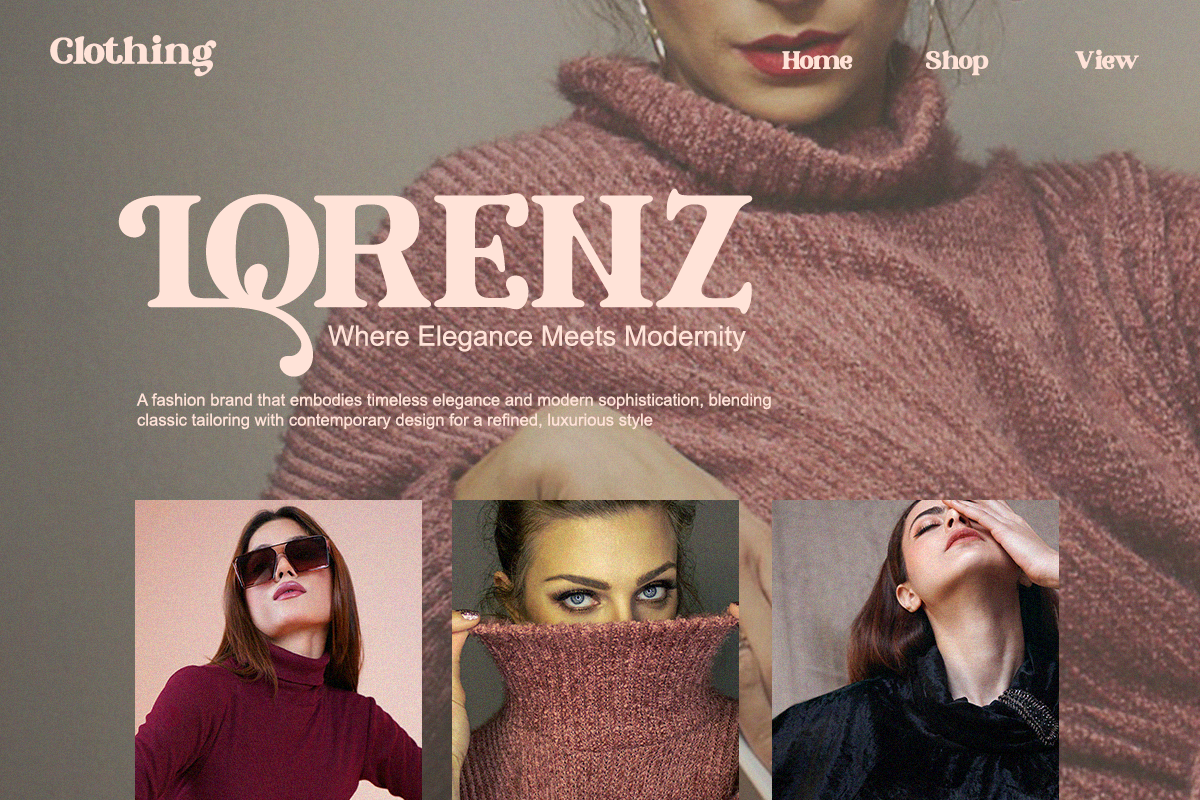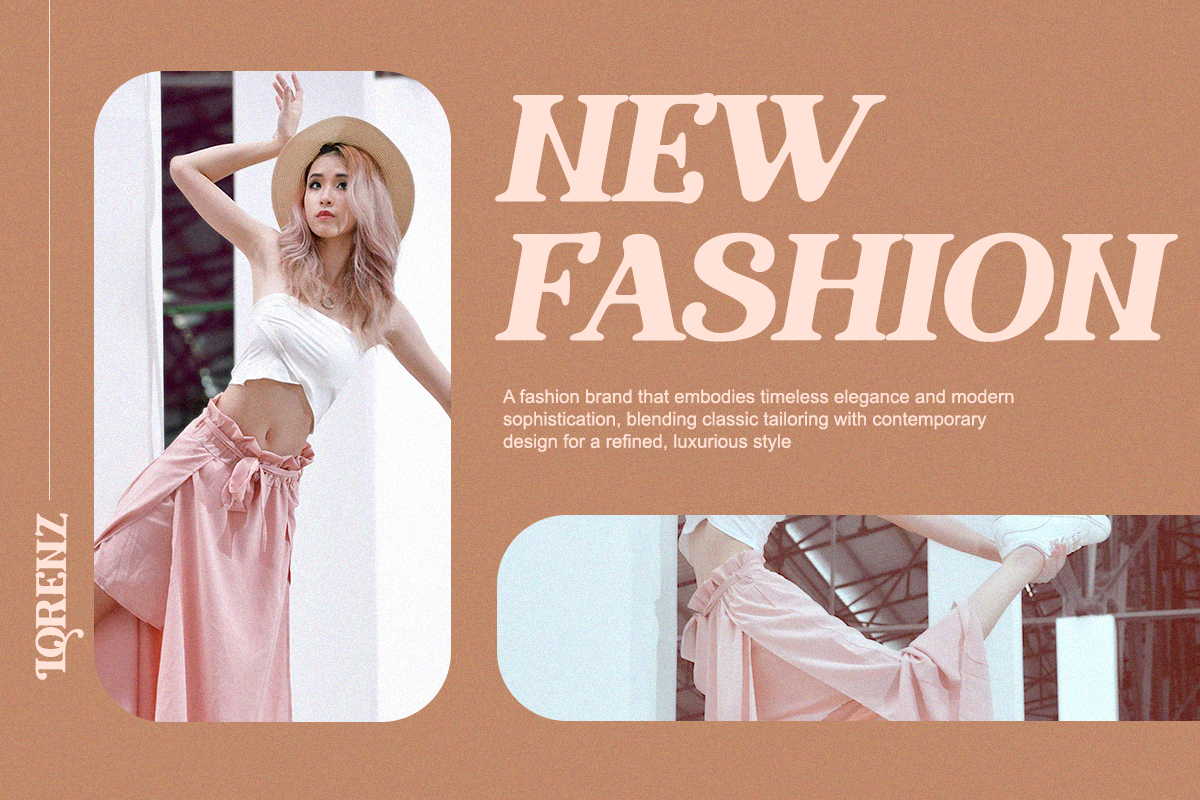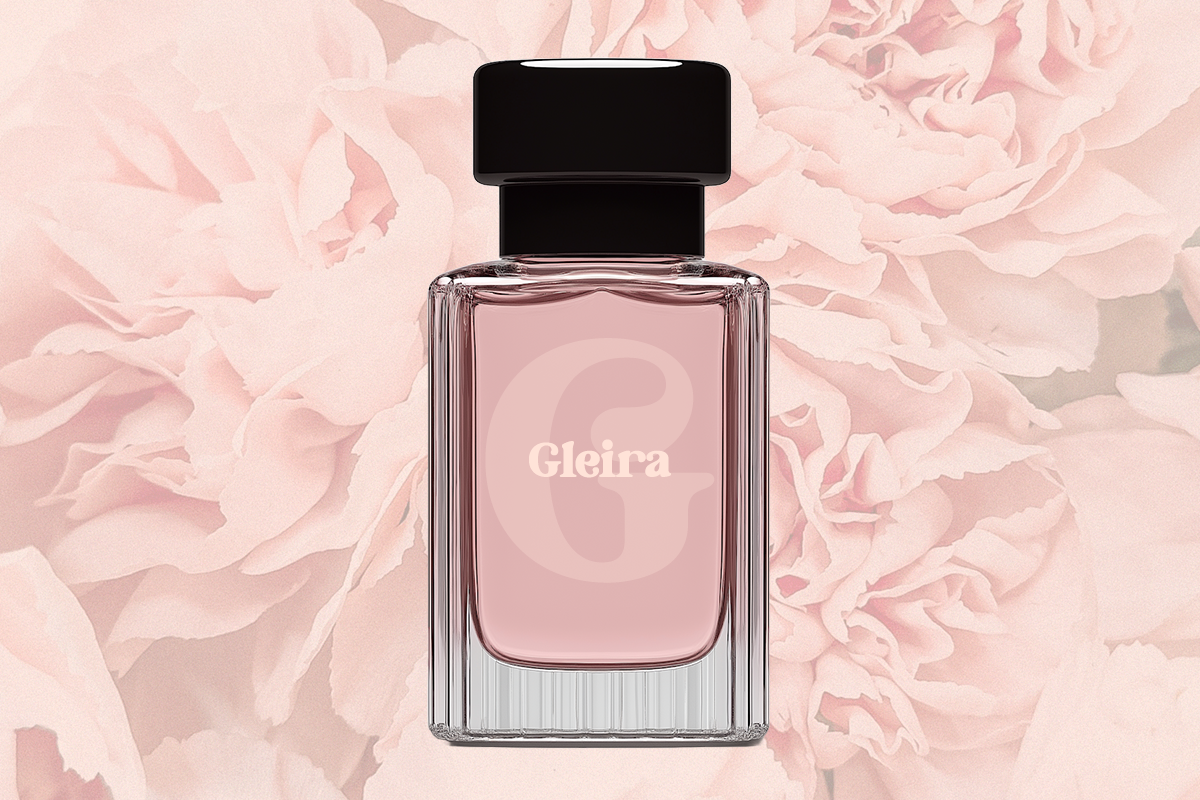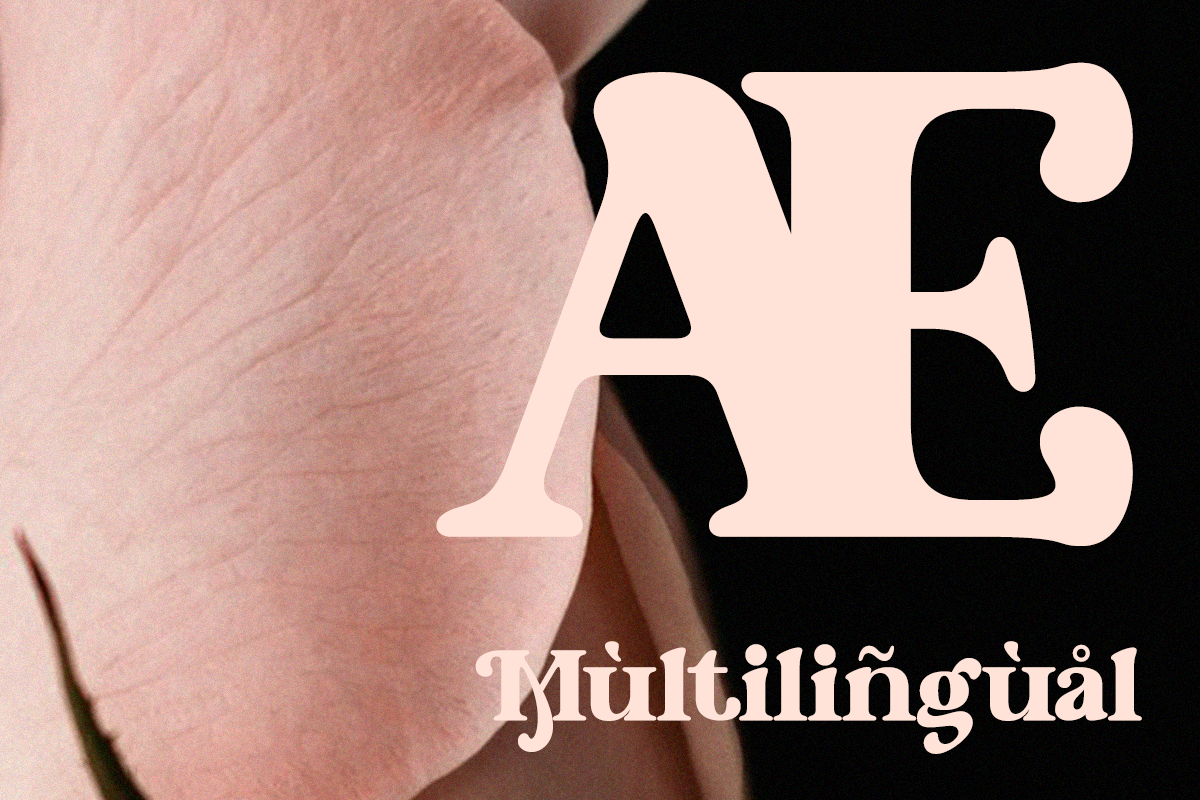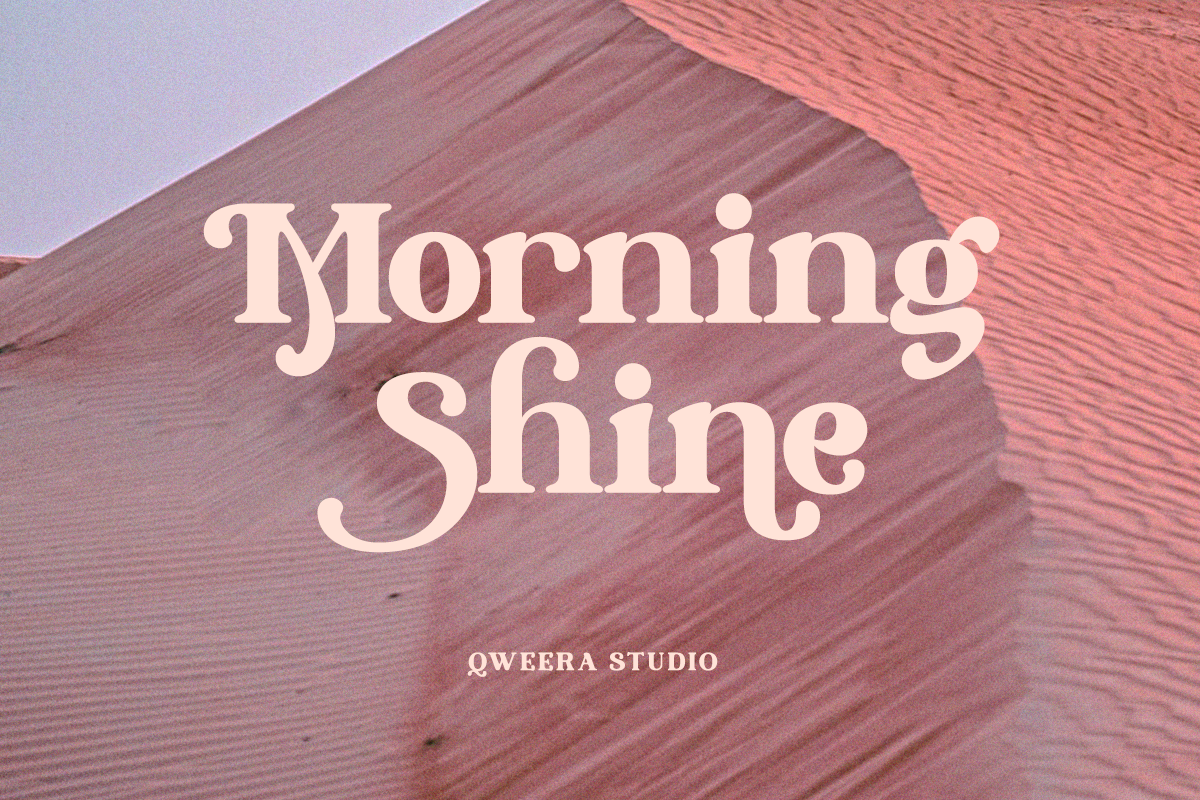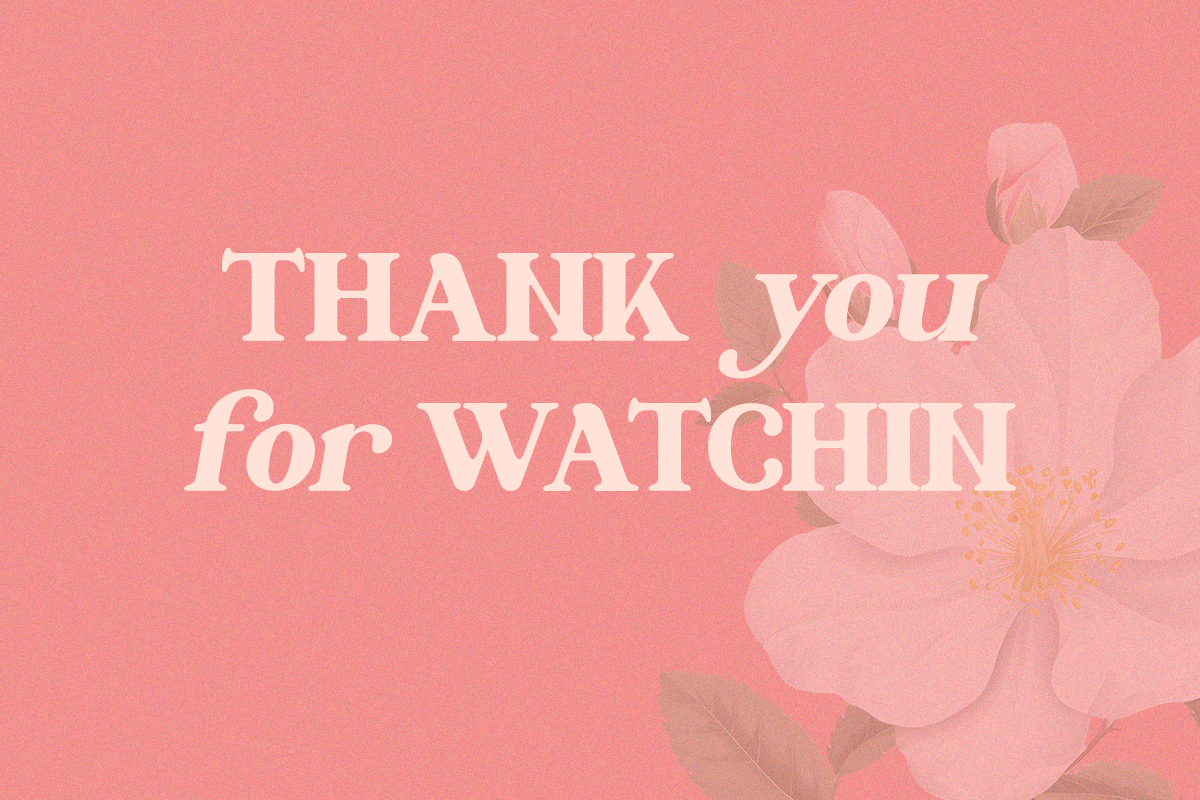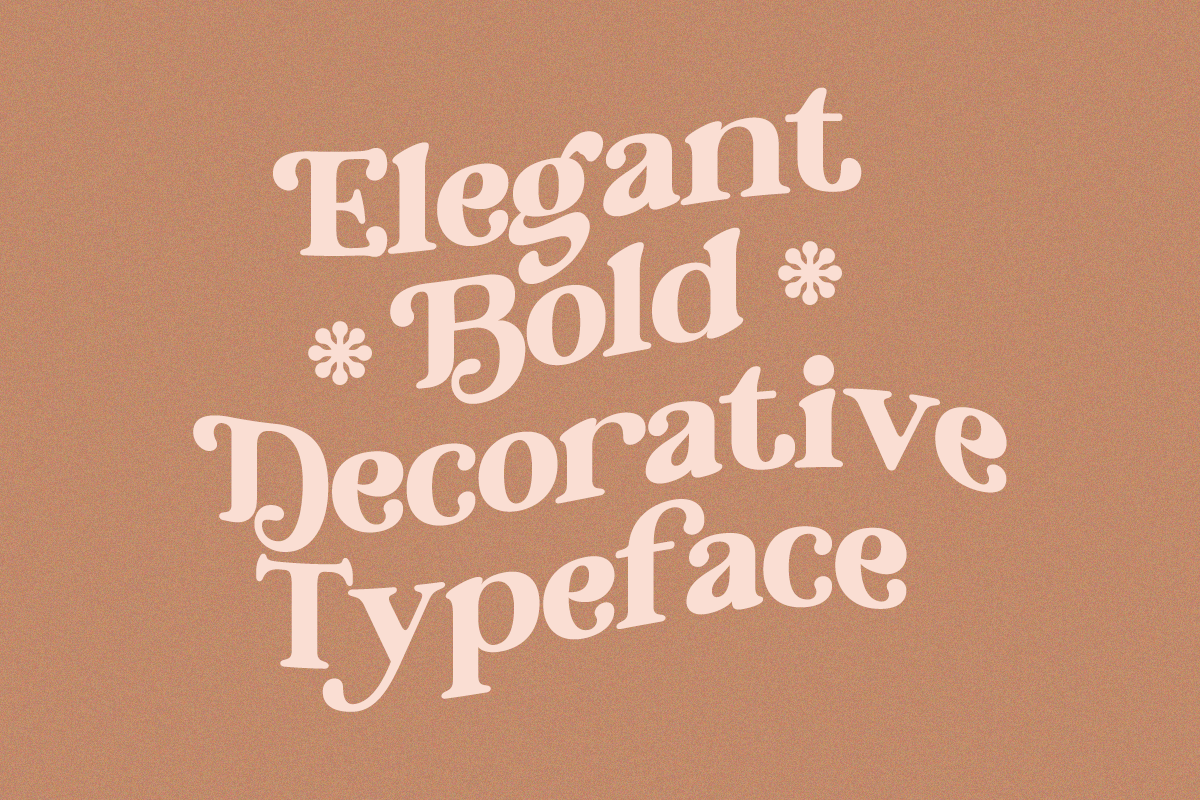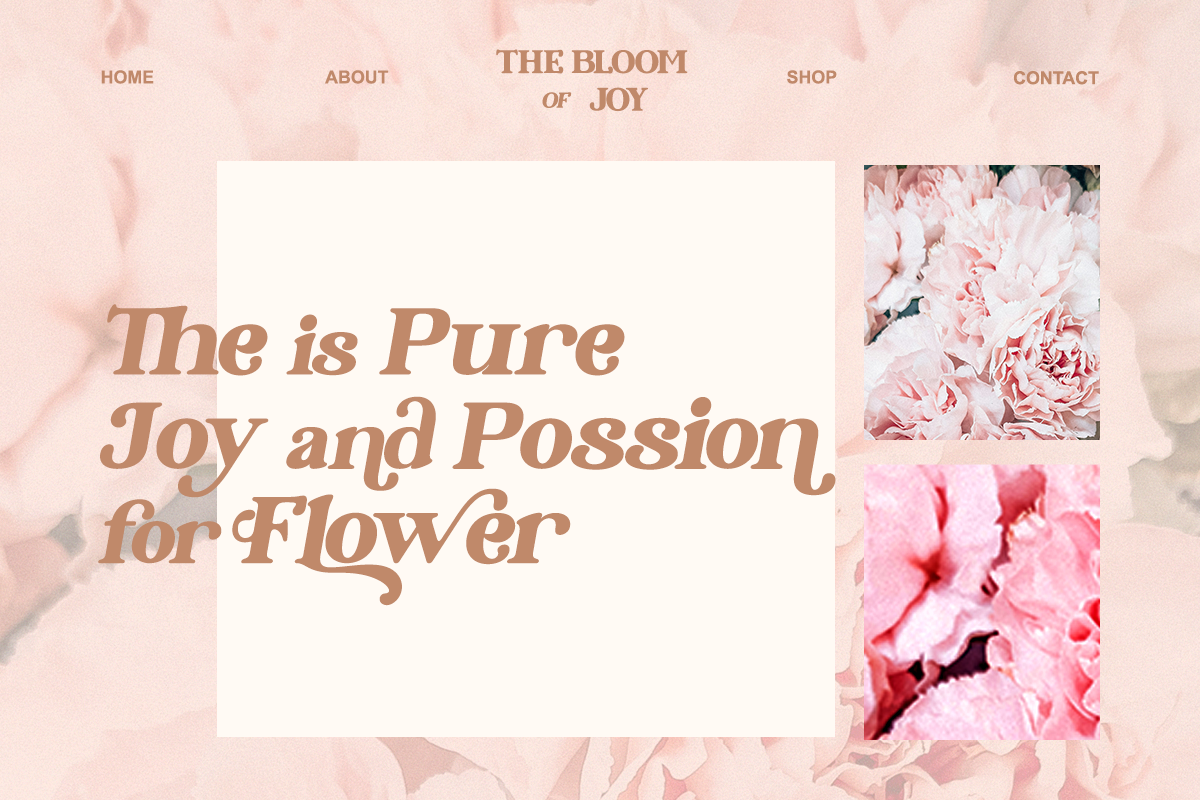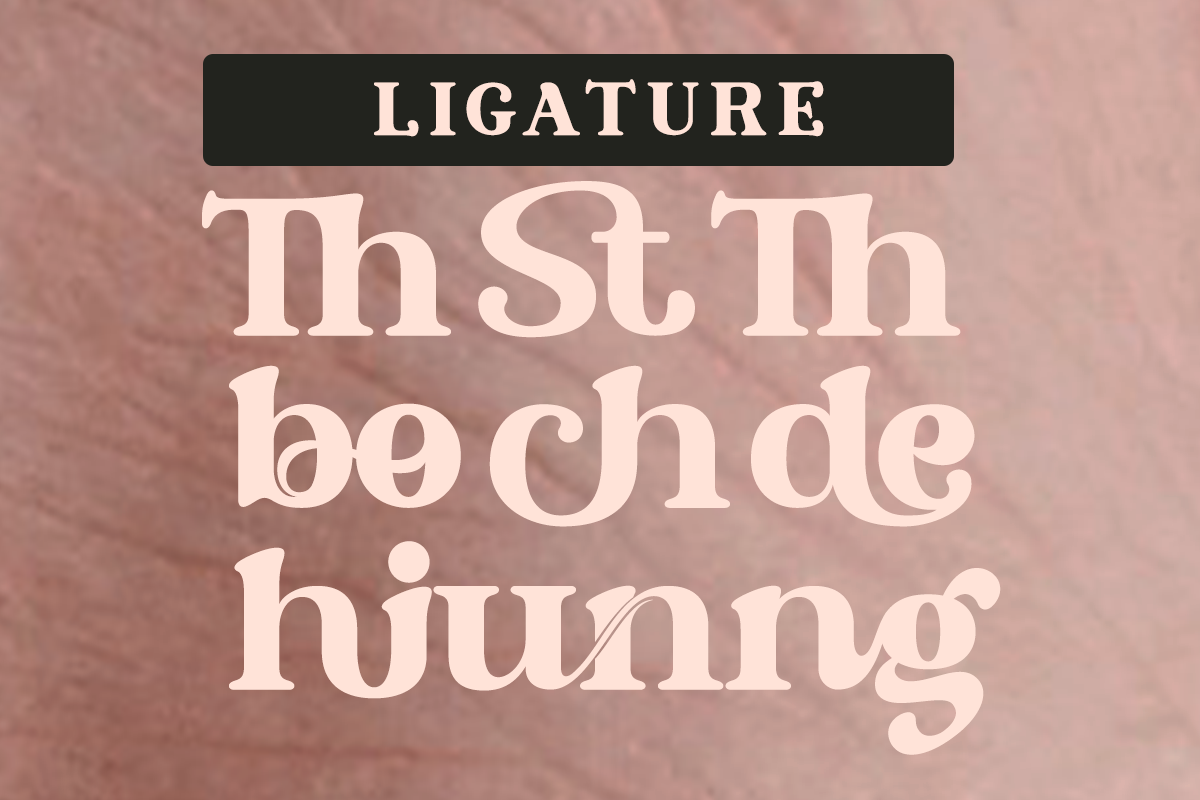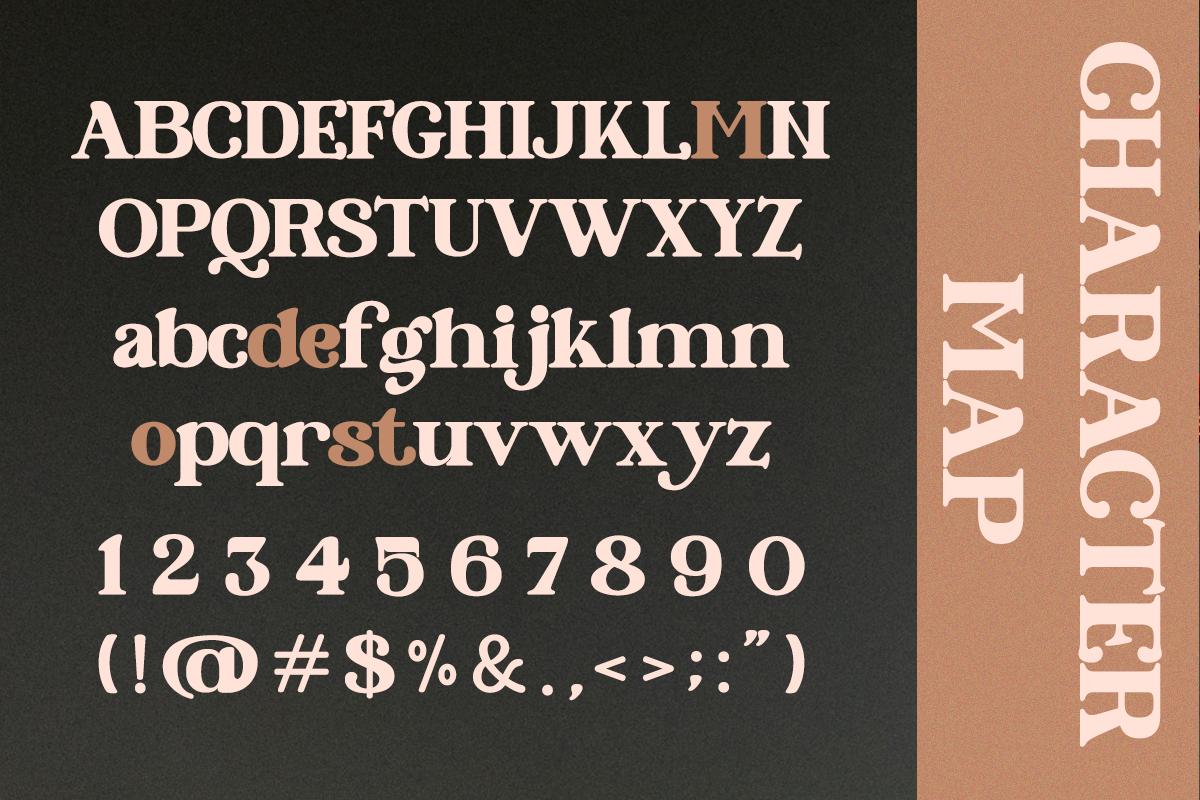
Modesto - Retro Modern Stylish Serif
Modesto is a stylish display serif font inspired by mid-century design and contemporary elegance. Its bold yet graceful details make it perfect for branding, magazine covers, logos, and product packaging. The combination of retro personality and refined simplicity makes Modesto a must-have for designers seeking modern-classic balance.
Perfect For: Editorial design, creative branding, fashion packaging, and elegant headlines.